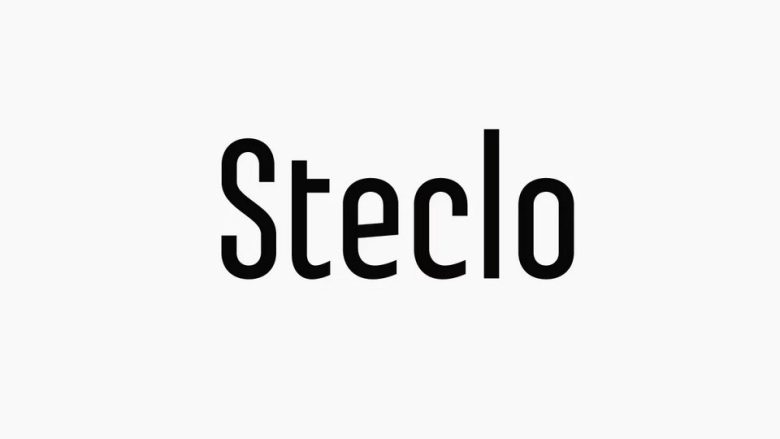
Steclo Font
Steclo Sans Serif Font is a classic and timeless sans serif – semibold roman sans serif Font. Made from font designer named Pepper Type. It’s a semi-closed narrowed display sans-serif typeface with pronounced technical character. It comes in 9 weights from Thin to Black accompanied by corresponding oblique italics. Steclo features rich language support including pan-European Latin and basic Cyrillic glyph sets.